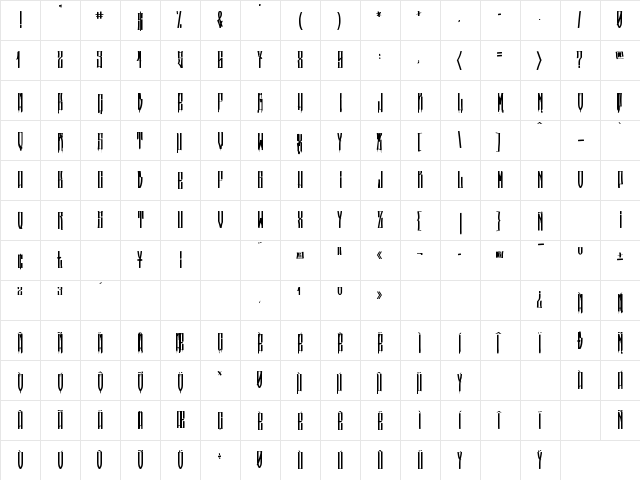
Pincel Regular
| Foundry | angrydubs |
| Designer | angrydubs |
Design Context for Pincel Typeface
Pincel is a composed and adaptable typeface that performs quietly and consistently across a wide range of design contexts.